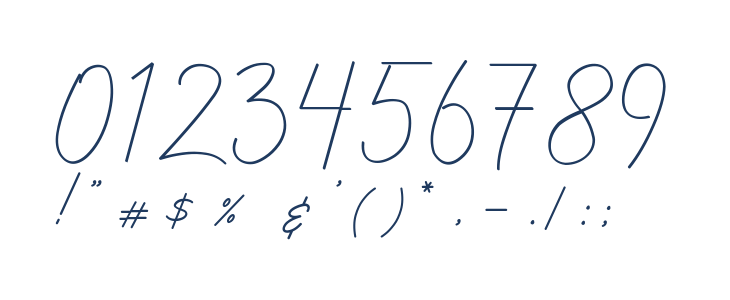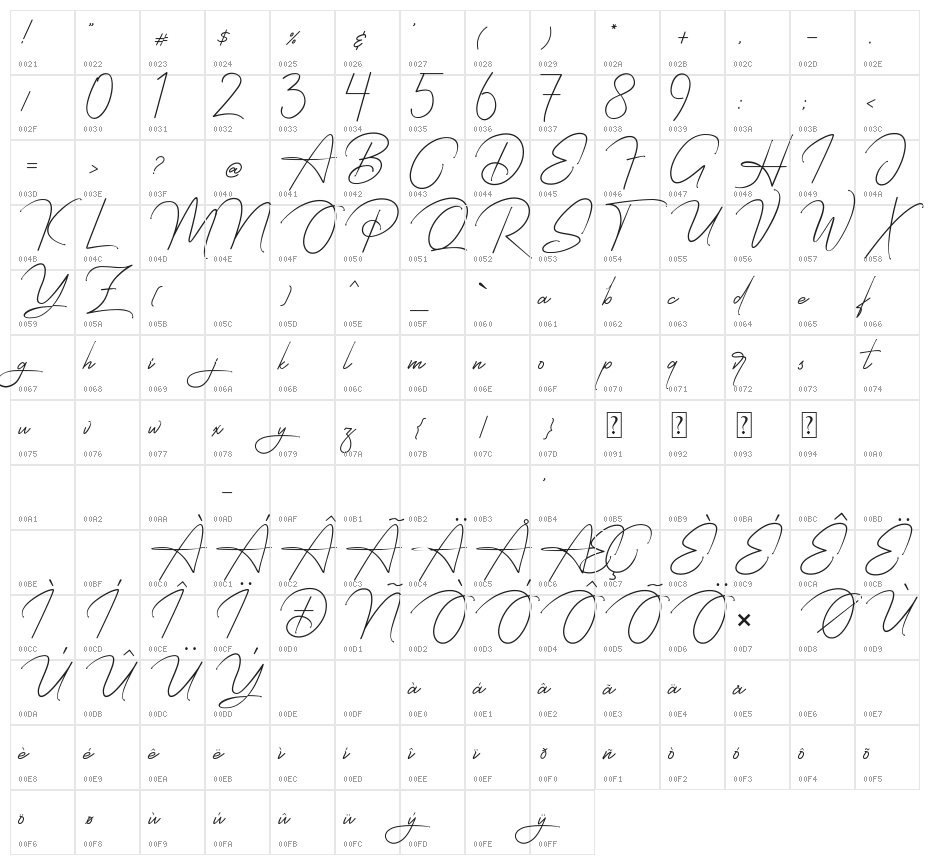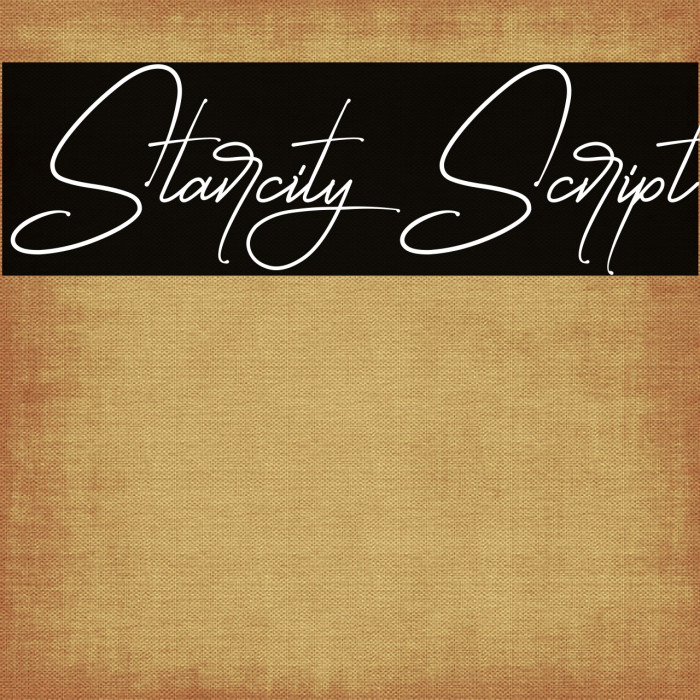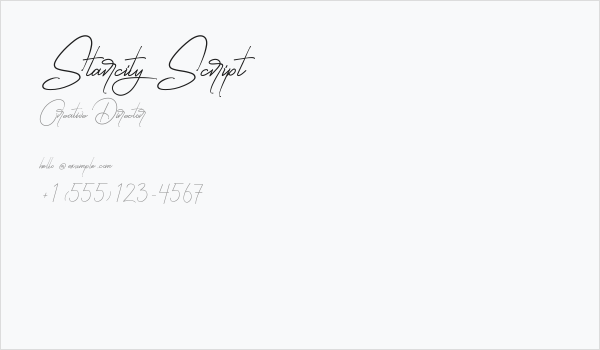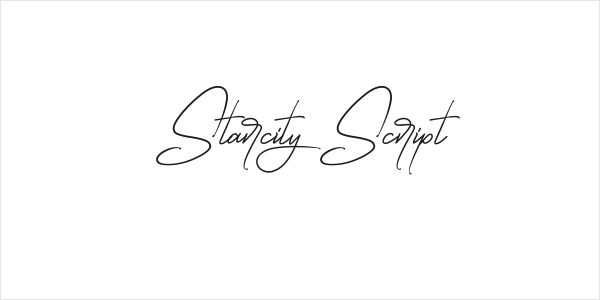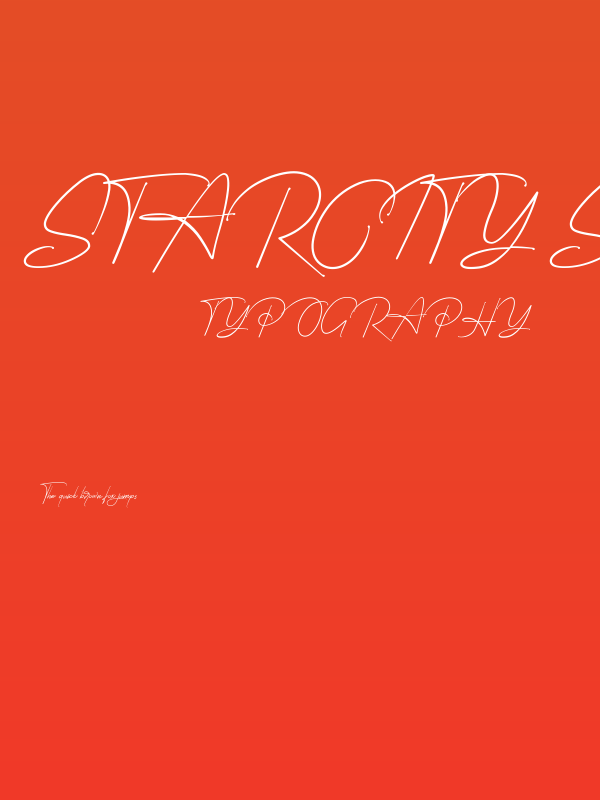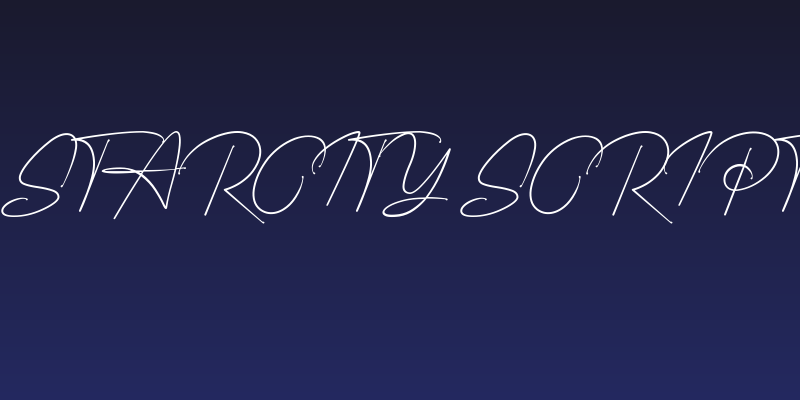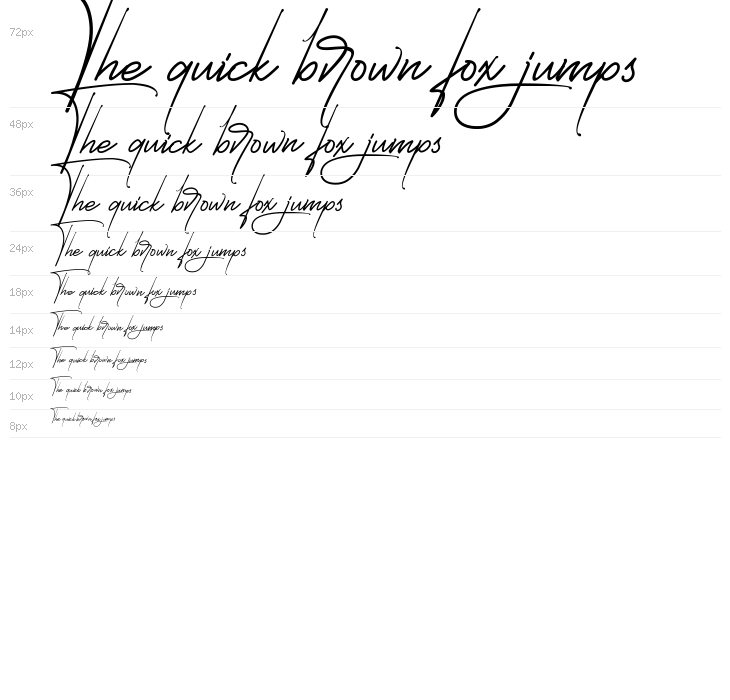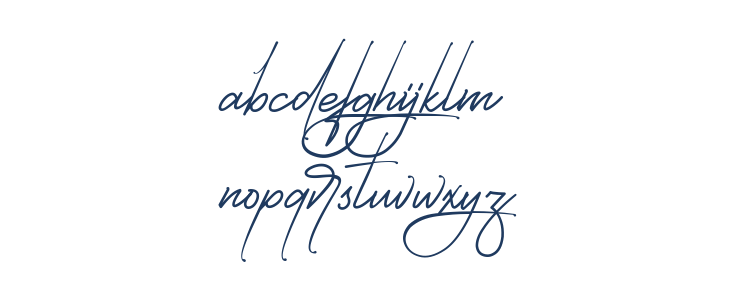
Starcity Script Font
Starcity Script Description
This elegant script font features a flowing, cursive style with a modern twist. The uppercase letters are characterized by their tall, slender forms and graceful loops, while the lowercase letters exhibit a more compact and connected design. The numerals are consistent with the overall style, maintaining a sense of fluidity and elegance. Special characters are thoughtfully integrated, adding to the font's versatility. The strokes are generally thin, with a consistent weight that enhances readability while maintaining a sophisticated appearance.